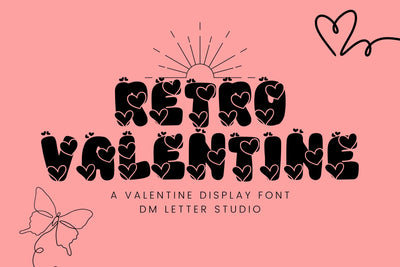
Retro Valentine
Retro Valentine – A Playful & Romantic Display Font
Retro Valentine is a sweet and stylish display font inspired by vintage lettering with a romantic twist. With bold curves, charming heart details, and a bubbly retro vibe, it’s the perfect choice for Valentine’s Day cards, wedding invites, love quotes, and social media posts. This font brings a nostalgic yet fresh energy to any design that celebrates love.
Vintage Romantic Style – Classic retro curves with heart-inspired details for a charming look.
Ideal for Love-Themed Projects – Perfect for Valentine’s graphics, greeting cards, wedding invitations, and more.
Eye-Catching Display Font – Designed to stand out with a bold and bubbly style.